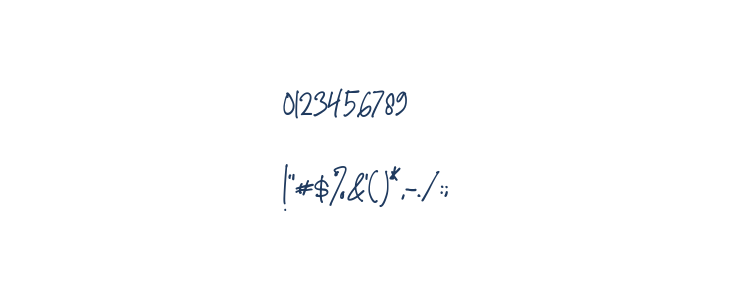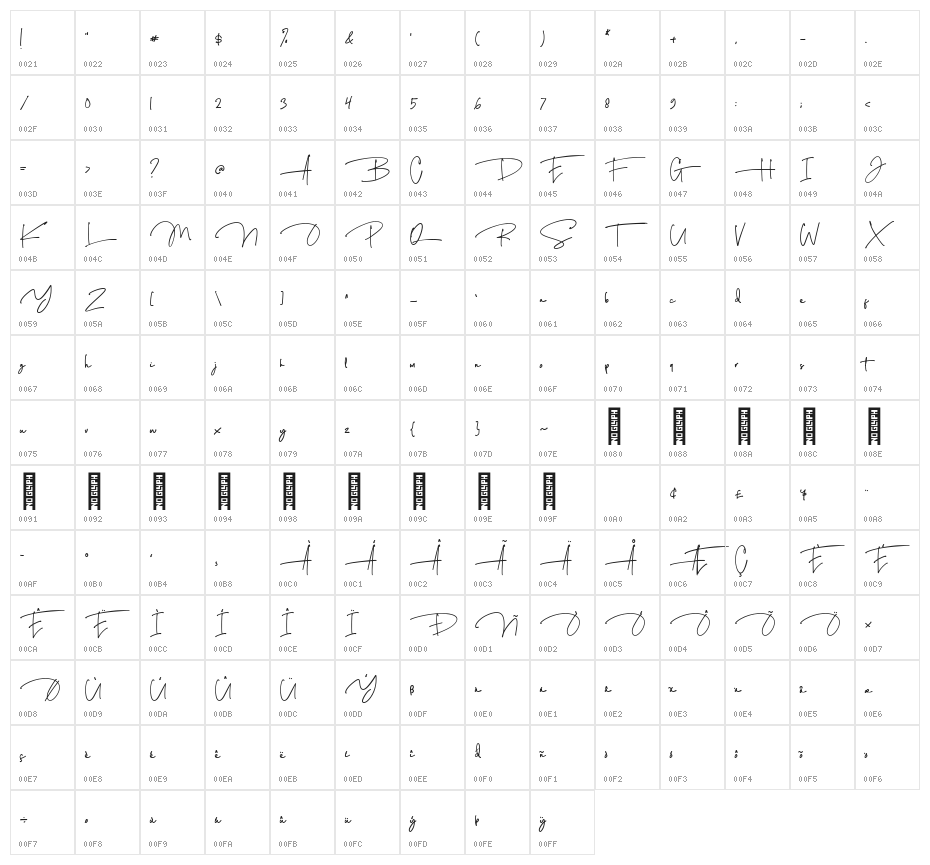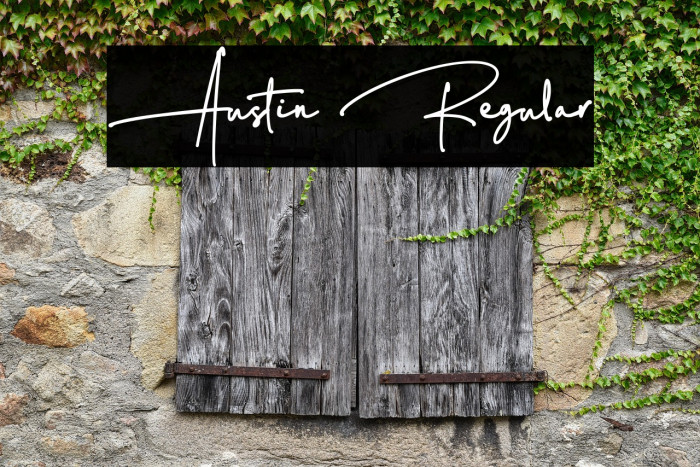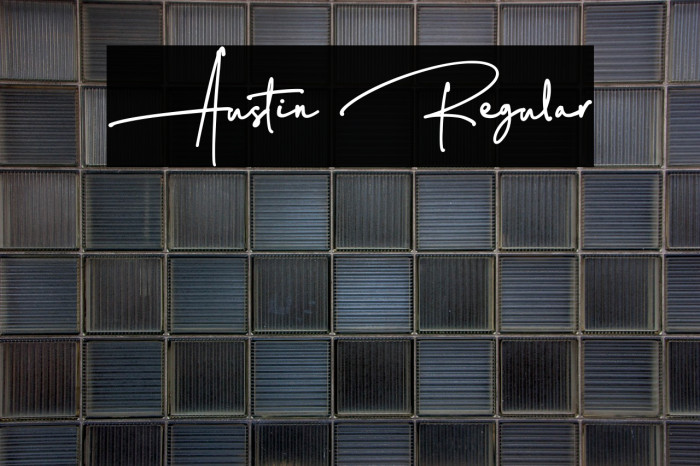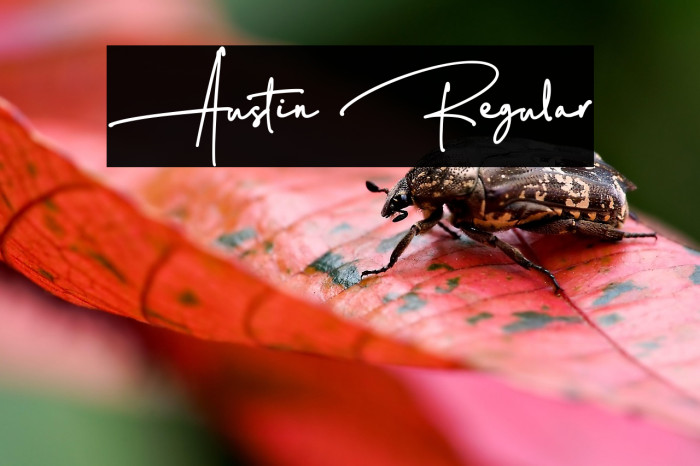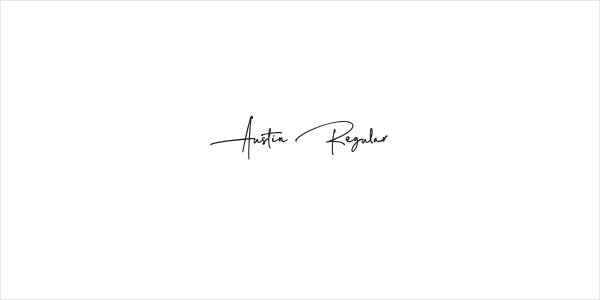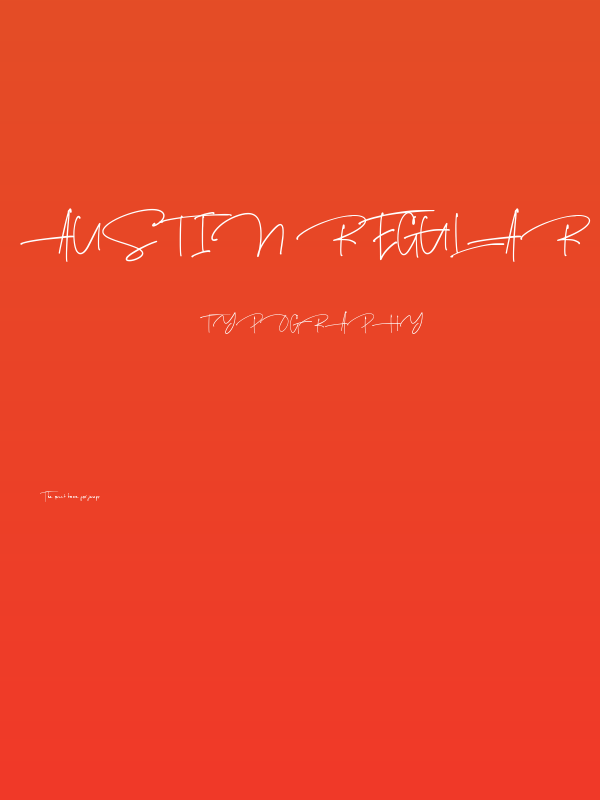
Austin Regular Font
Austin Regular Description
This font features a fluid, handwritten style with a casual and personal touch. The letters are interconnected, giving it a natural flow that mimics real handwriting. The uppercase letters are bold and slightly exaggerated, while the lowercase letters maintain a consistent and smooth appearance. The numbers and special characters are crafted with the same attention to detail, ensuring a cohesive look throughout. This font's playful yet elegant design makes it suitable for a variety of creative projects.
| Overall Style | Casual, Elegant |
| Proposed Projects | Ideal for wedding invitations, personal branding, greeting cards, and creative social media posts. |